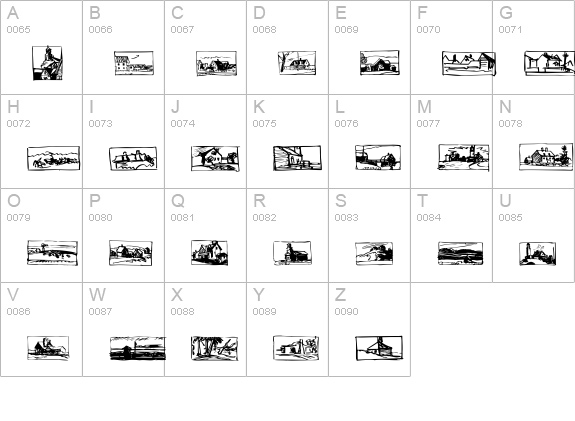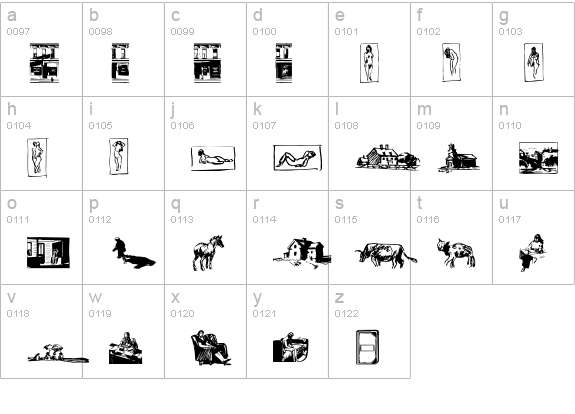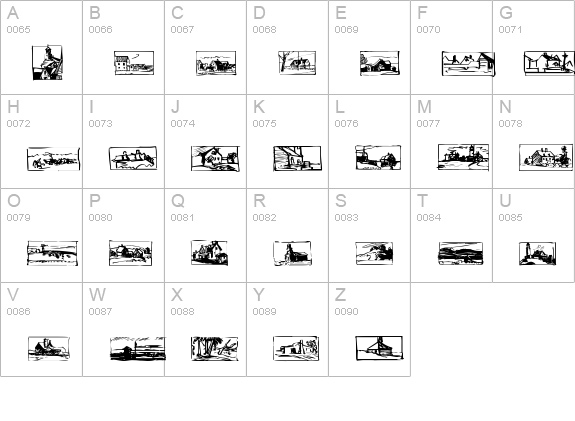
P22 Hopper Sketches Font Details
P22 Hopper Sketches font is a captivating typeface that captures the essence of hand-drawn sketches with its whimsical and playful design. Created in homage to the renowned American artist Edward Hopper, this font exudes a sense of artistic freedom and creativity. Every character of P22 Hopper Sketches font has been carefully crafted to resemble the spontaneous strokes of a pencil or pen, adding a unique and organic touch to any design project. Its uneven lines and imperfect curves evoke a sense of authenticity, making it suitable for a variety of creative applications. This font is freely available to download at FontsMarket.com, a trusted source for high-quality fonts. Whether you are a graphic designer, illustrator, or simply an individual looking to add a touch of artistic flair to your projects, P22 Hopper Sketches font offers endless possibilities. Its versatility allows it to be used in various design contexts, from branding and packaging to book covers and social media graphics. With P22 Hopper Sketches font, you can effortlessly infuse your designs with a sense of hand-drawn charm and artistic expression. Its free availability ensures that you have easy access to this delightful typeface, allowing you to unleash your creativity without any limitations. So, explore the world of P22 Hopper Sketches font and let your imagination run wild. Download it for free at FontsMarket.com and embark on a creative journey that will captivate and inspire.